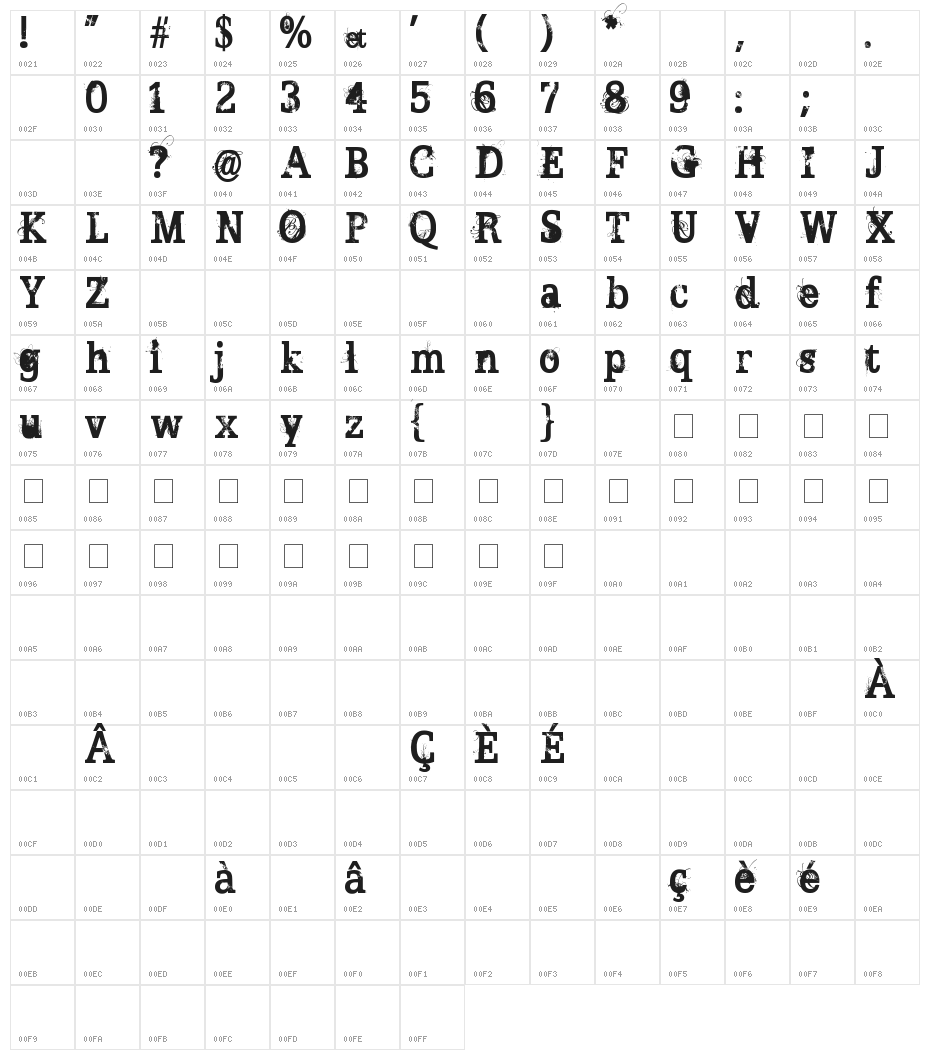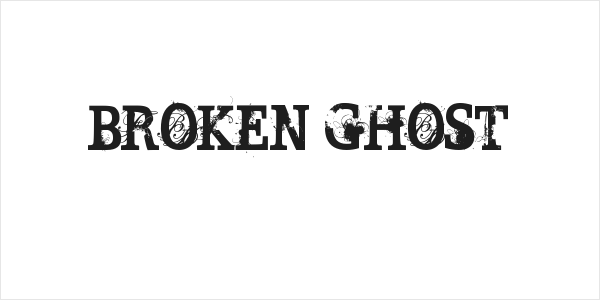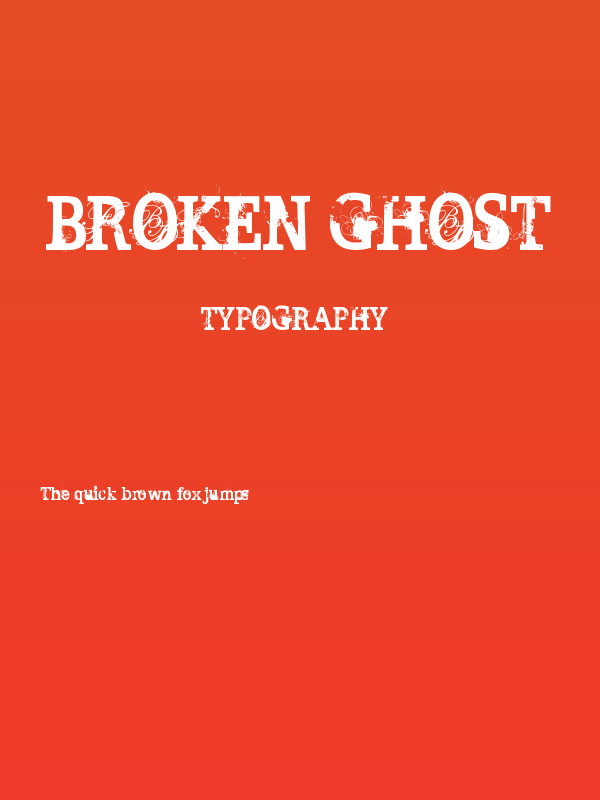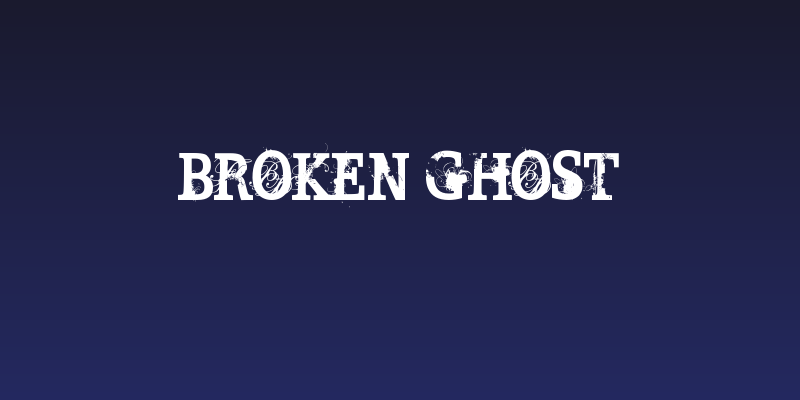
BROKEN GHOST Font
BROKEN GHOST Description
This font features a bold and distressed style, with each character appearing as if it has been weathered or eroded over time. The uppercase and lowercase letters maintain a consistent weight, with intricate details and splatters that give it a grunge or ghostly appearance. The numerals and special characters follow the same design, adding to the overall cohesive look. This font is highly decorative and makes a strong visual impact, suitable for projects that require a bold statement.
| Proposed Projects | Ideal for horror-themed posters, album covers, Halloween invitations, and any design requiring a dramatic and eerie aesthetic. |